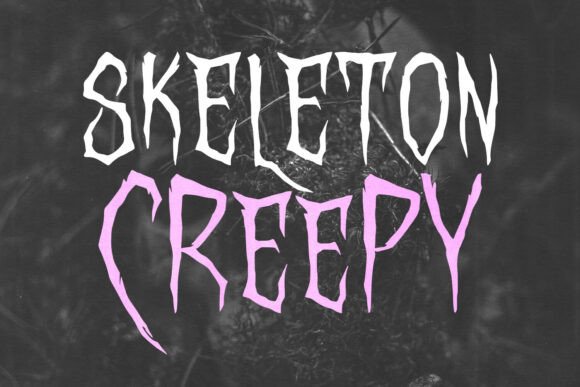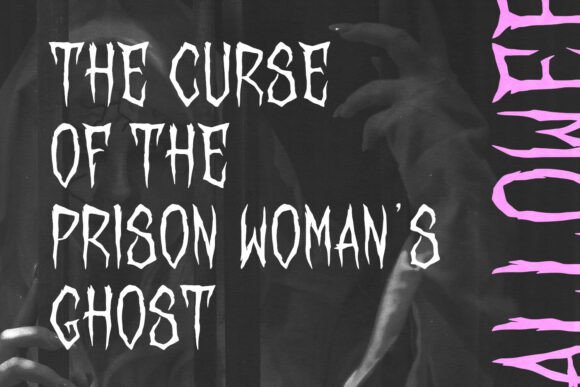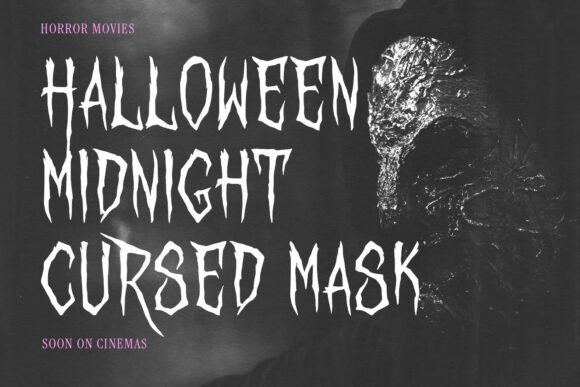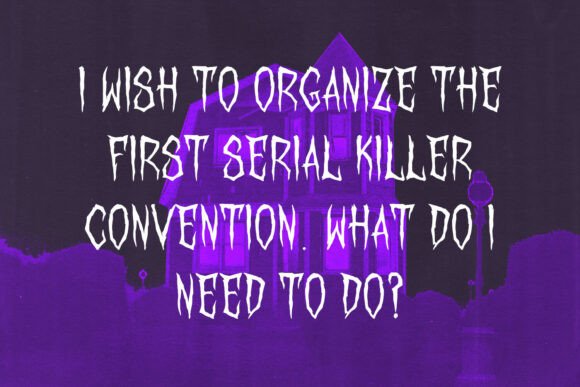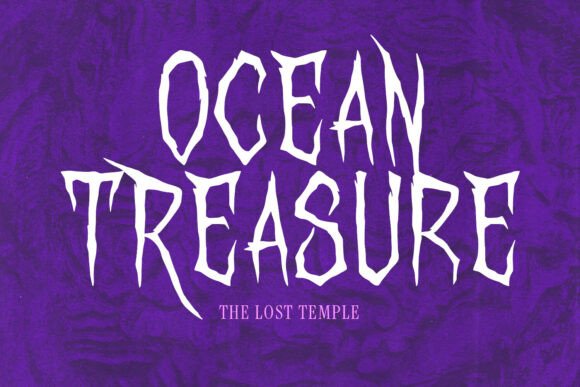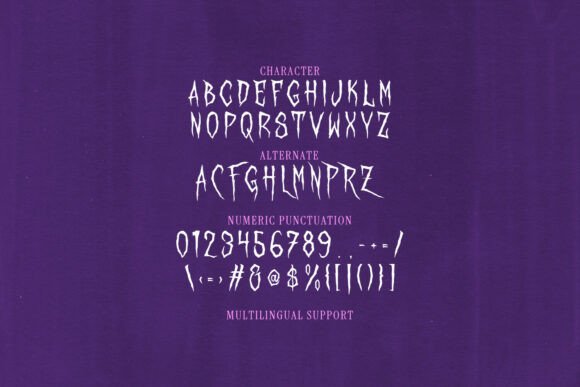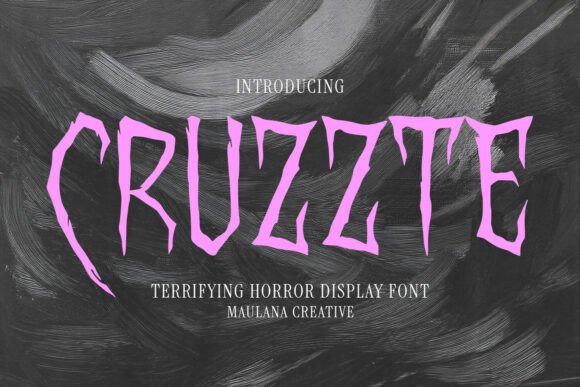
Cruzzte Font: Unleash the Horror with this Spine-Chilling Display Font
Are you a designer or craft looking to add a touch of terror to your projects? Look no further than the Cruzzte Font, a scary and spooky display font designed to bring a chilling, bone-rattling aesthetic to your creations. With its jagged edges, twisted forms, and dripping-blood appearance, this typeface is perfect for designers looking to create high-impact, terrifying visuals.
A Grotesque and Frightening Display Typeface
Cruzzte is specifically designed to send shivers down the spine, making it the ultimate choice for any project that dares to delve into the macabre. This grotesque and intensely frightening display typeface features jagged, elongated, and distorted letterforms that mimic dripping blood, decaying flesh, or sharpened claws, creating an unmistakably terrifying aesthetic.
A Work of Dark Art
Each glyph in this horror display typeface is a work of dark art, imbued with an eerie energy that practically screams fear and despair. The attention to detail in Cruzzte is impressive, with every letter and symbol carefully crafted to create a sense of unease and tension. Whether you’re designing a horror movie poster, a Halloween event invitation, or a scary video game title, Cruzzte is the perfect choice to set the tone for a terrifying experience.
Perfect for Horror and Spooky Projects
Cruzzte is ideal for a wide range of projects, including:
- Horror movie posters and trailers
- Halloween event invitations and decorations
- Scary video game titles and in-game text
- Haunted house signage and branding
- Gruesome book covers and author branding
Why Choose Cruzzte?
So why choose Cruzzte over other display fonts? Here are just a few reasons:
- Unique and terrifying aesthetic: Cruzzte’s jagged edges and twisted forms create a truly terrifying aesthetic that’s sure to grab attention.
- High-impact visuals: This font is designed to create high-impact visuals that will leave a lasting impression on your audience.
- Versatile: Cruzzte can be used for a wide range of projects, from horror movies to Halloween events and more.
- Easily readable: Despite its distressed appearance, Cruzzte is surprisingly easy to read, making it perfect for titles, headings, and other display text.
Tips for Using Cruzzte
Here are a few tips for using Cruzzte in your projects:
- Use it sparingly: Cruzzte is a bold and attention-grabbing font, so use it sparingly to avoid overwhelming your audience.
- Pair it with a neutral font: Pair Cruzzte with a neutral font to create contrast and make your text more readable.
- Experiment with colors: Cruzzte looks great in bold, bright colors, but feel free to experiment with different colors to create the perfect look for your project.
Cruzzte is a scary and spooky display font that’s perfect for designers and crafters looking to add a touch of terror to their projects. With its jagged edges, twisted forms, and dripping-blood appearance, this typeface is sure to create high-impact, terrifying visuals that will leave a lasting impression on your audience. So why wait? Download Cruzzte today and unleash the horror in your designs!